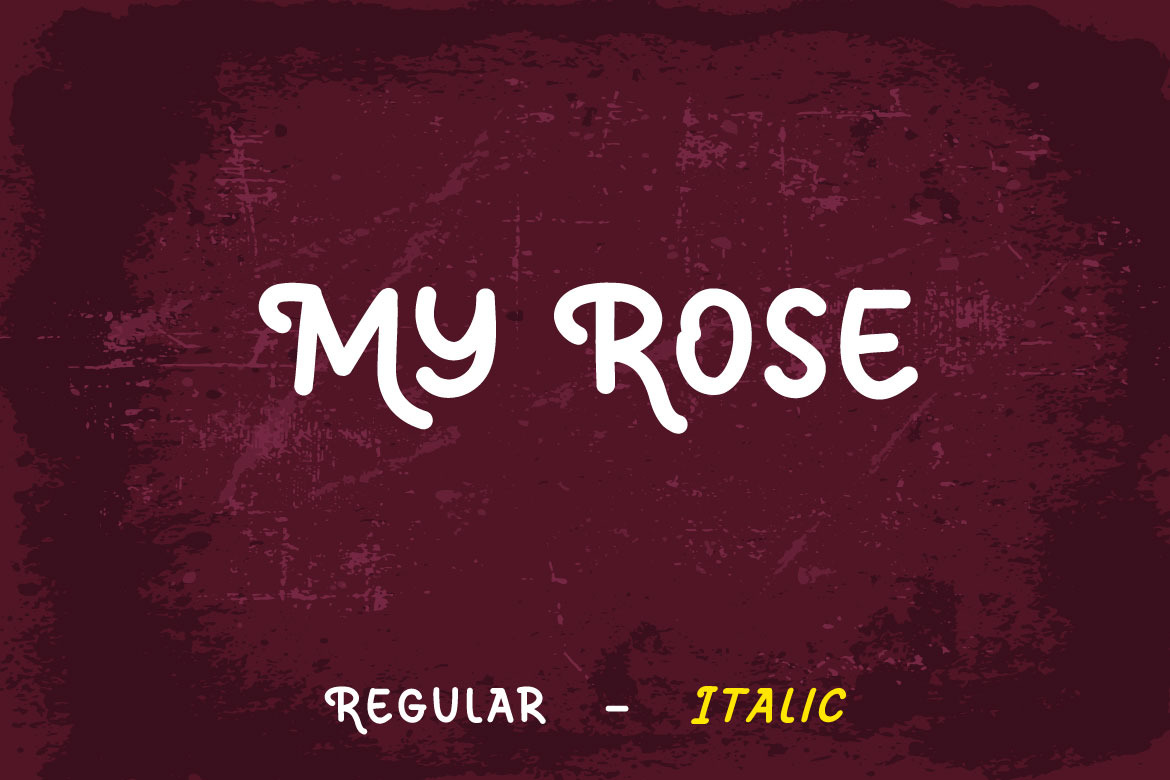
My Rose - Handwritten Display Font
Hello! My Rose is a bold comic font. My Rose can be used in any works such as comic book, poster, school, flyer, book title, advertisement, social media content, logo and many more.